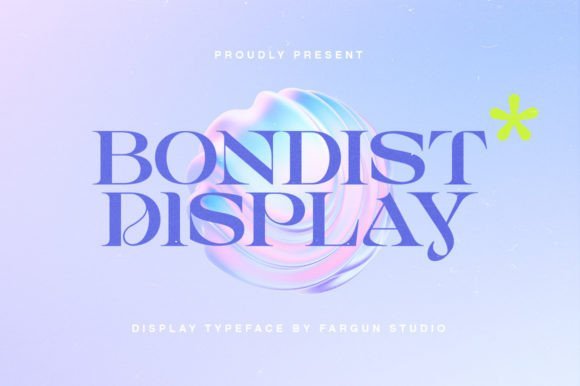
The Perfect Headline: Unlocking the Power of the Bondist Display Font
As a designer, there’s nothing quite like that ‘aha’ moment when a font comes together just right. You’re working on a project, and suddenly, the perfect combination of style and sophistication appears. For many of us, that moment is made possible by the Bondist Display Font – an attractive and stylish font designed to catch the eye.
This versatile font is perfect for creating eye-catching headlines, logos, and other design elements that demand attention. With sleek lines and bold shapes, the Bondist Display Font adds a touch of sophistication to any project, elevating it from ordinary to extraordinary. And with its PUA encoding, accessing all glyphs and swashes is effortless, giving you the freedom to create truly unique and memorable designs.
Bondist Display Font Key Features
- Unique Characteristics: The font features a distinctive, modern design with a blend of geometric and organic elements, making it perfect for bold headlines and titles.
- Kerning and Ligatures: The font includes advanced kerning and ligature pairs, ensuring smooth and harmonious typography even at small font sizes.
Bondist Display Font Review
Overall, I think Bondist Display Font is a decent addition to any font library. Here are some things that work well:
- ✨ The bold, modern aesthetic is perfect for headlines and titles.
- ✨ The font is highly legible, even at small sizes.
- ✨ The font’s versatility makes it suitable for various design projects, from branding to advertising.
- ⚠️ The font may be too bold for some design projects, potentially overwhelming the surrounding content.
- ⚠️ The font’s limited character set may not be suitable for complex typography or language-specific designs.
- ⚠️ The font’s boldness may not be accessible for users with visual impairments.
In conclusion, while Bondist Display Font has its strengths, it’s essential to weigh its limitations before incorporating it into your design projects. It’s a solid choice for bold, attention-grabbing headlines, but may not be the best fit for more nuanced typography or accessibility-focused designs.
Tips: Use Bondist Display Font for headings and titles to add a touch of elegance to your design. Experiment with different font sizes and colors to create a visually appealing contrast.
Tips: Use Bondist Display Font for titles and headings in your graphic design projects. Use the font’s bold and italic styles to create emphasis and hierarchy.
Tips: Use Bondist Display Font for headings and titles in your presentations and documents. Experiment with different font sizes and colors to create a visually appealing contrast.
Bondist Display Font is suitable for:
1. Headings and titles in graphic design projects.
2. Branding and logos.
3. Digital signage and advertising.
4. Print materials such as brochures and business cards.
Alternatives to Bondist Display Font for Designers
Playfair Display is an elegant, luxurious serif font ideal for use in high-end branding, advertising, and editorial content. Its refined aesthetic makes it suitable for creating a sophisticated and refined atmosphere. When to use: Luxury brands, fashion, and high-end products. It compares to Bondist Display Font as it has a similar level of sophistication, but with a more ornate and traditional feel.
Didot is a classic serif font that exudes elegance and sophistication. It’s perfect for use in high-end branding, advertising, and editorial content that requires a sense of refinement and luxury. When to use: Luxury brands, fashion, and high-end products. It compares to Bondist Display Font as it has a similar level of sophistication, but with a more traditional and less ornate feel.